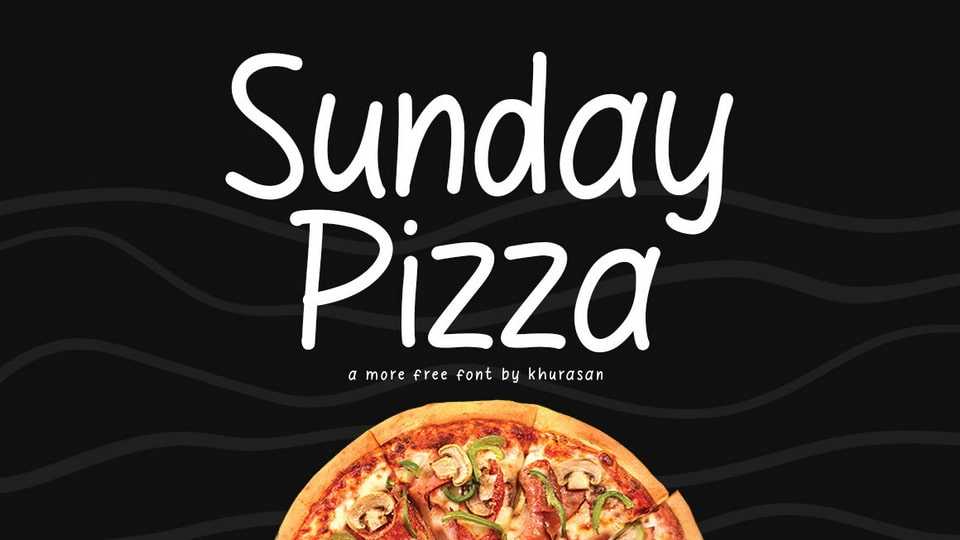
Download Sunday Pizza font, a simple handwritten typeface that pays a homage to the playful lettering found in your favorite comics. Its unpretentious lines and casual strokes give your text a down-to-earth charm.